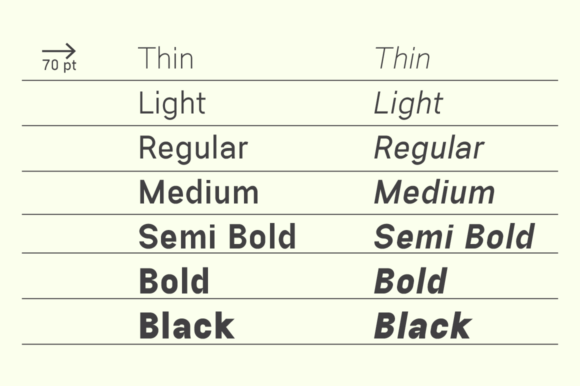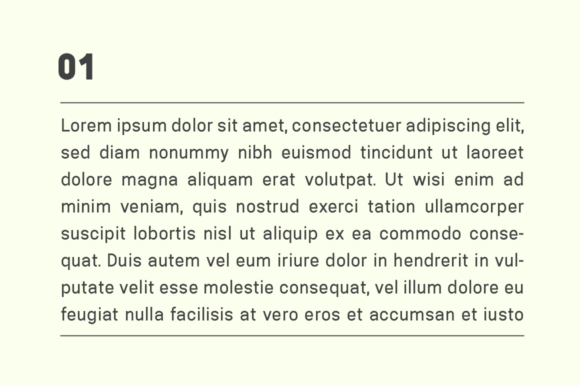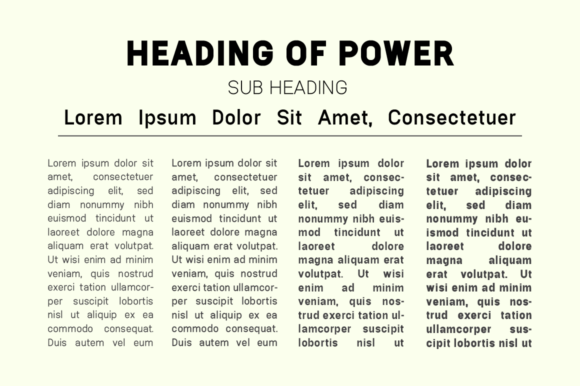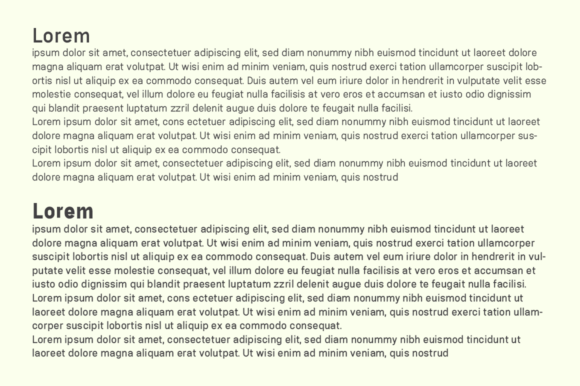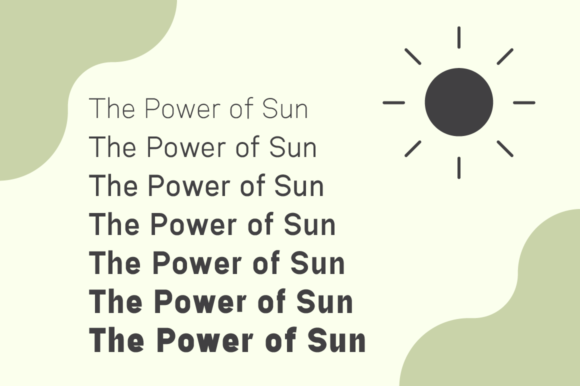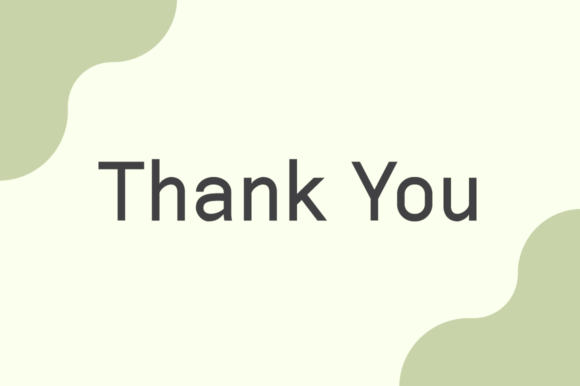
Aftetir Font: The Simple yet Powerful Sans Serif Font for Creative Minds
In the world of typography, a good font can make all the difference in bringing your creative ideas to life. Aftetir Font is a simple sans serif font that has been masterfully designed to become a true favorite among designers and crafters. With its clean and minimalist aesthetic, Aftetir has the potential to elevate your designs to the highest level.
The Characteristics of Aftetir Font
Aftetir Font is a sans serif font, which means it doesn’t have the small lines or flourishes at the ends of the letters. This gives it a clean and modern look that’s perfect for designs that require a bit of sophistication. The font is also highly legible, making it ideal for use in a variety of applications, from digital media to print materials.
One of the standout features of Aftetir Font is its simplicity. The font has a limited number of strokes, which gives it a streamlined look that’s both elegant and understated. This simplicity also makes it highly versatile, allowing you to use it in a wide range of design contexts.
The Benefits of Using Aftetir Font
So why choose Aftetir Font for your design projects? Here are just a few benefits of using this powerful font:
- Improved Readability: Aftetir Font is designed to be highly legible, even at small sizes. This makes it perfect for use in digital media, such as websites and social media graphics.
- Enhanced Versatility: The simplicity of Aftetir Font makes it highly versatile, allowing you to use it in a wide range of design contexts, from print materials to digital media.
- Modern Aesthetic: Aftetir Font has a clean and modern look that’s perfect for designs that require a bit of sophistication.
- Ease of Use: Aftetir Font is easy to use and pairs well with a variety of other fonts, making it a great addition to any designer’s toolkit.
Who Can Benefit from Aftetir Font?
Aftetir Font is a great choice for a wide range of designers and crafters, including:
- Graphic Designers: Aftetir Font is perfect for use in graphic design projects, such as logos, brochures, and business cards.
- Web Designers: The font’s high legibility and clean aesthetic make it a great choice for use in web design projects.
- Digital Artists: Aftetir Font can be used to add a touch of sophistication to digital art projects, such as illustrations and graphics.
- Crafters: Aftetir Font is also a great choice for crafters who want to add a professional touch to their projects, such as handmade cards and invitations.
How to Use Aftetir Font
Using Aftetir Font is easy. Here are a few tips to get you started:
- Pair it with Other Fonts: Aftetir Font pairs well with a variety of other fonts, so don’t be afraid to experiment with different combinations.
- Use it in Headings and Titles: Aftetir Font is perfect for use in headings and titles, where its clean and modern aesthetic can really shine.
- Experiment with Different Sizes: Aftetir Font is highly legible, even at small sizes, so don’t be afraid to experiment with different sizes to find the one that works best for your design.
Aftetir Font is a simple yet powerful sans serif font that’s perfect for designers and crafters who want to bring their creative ideas to life. With its clean and modern aesthetic, high legibility, and versatility, Aftetir Font is a great addition to any designer’s toolkit. Whether you’re working on a graphic design project, a web design project, or a craft project, Aftetir Font is sure to become a true favorite.